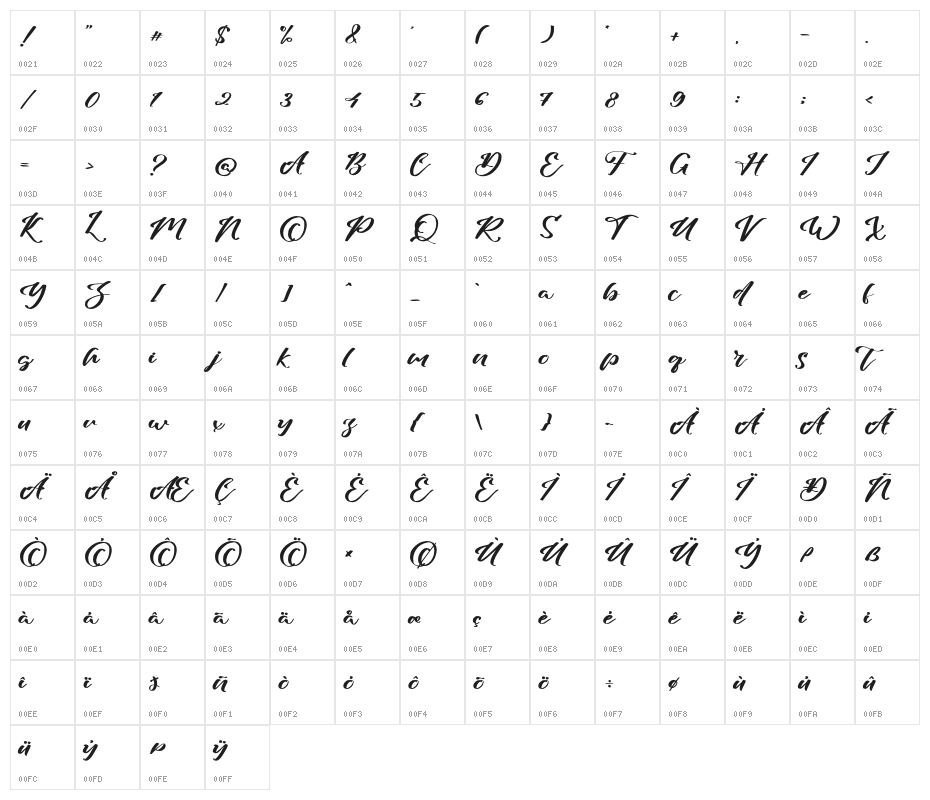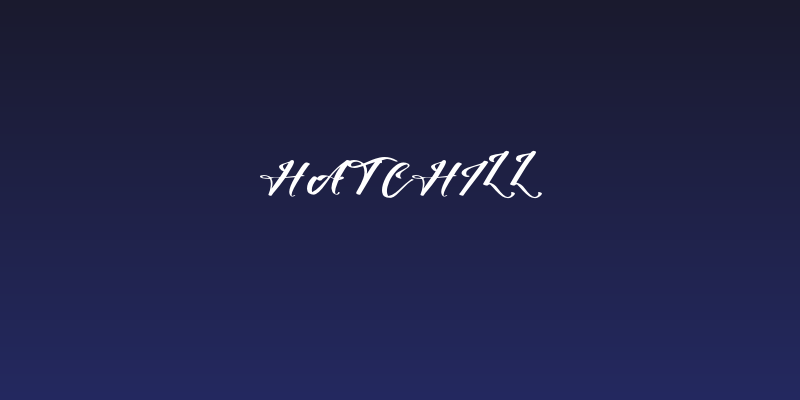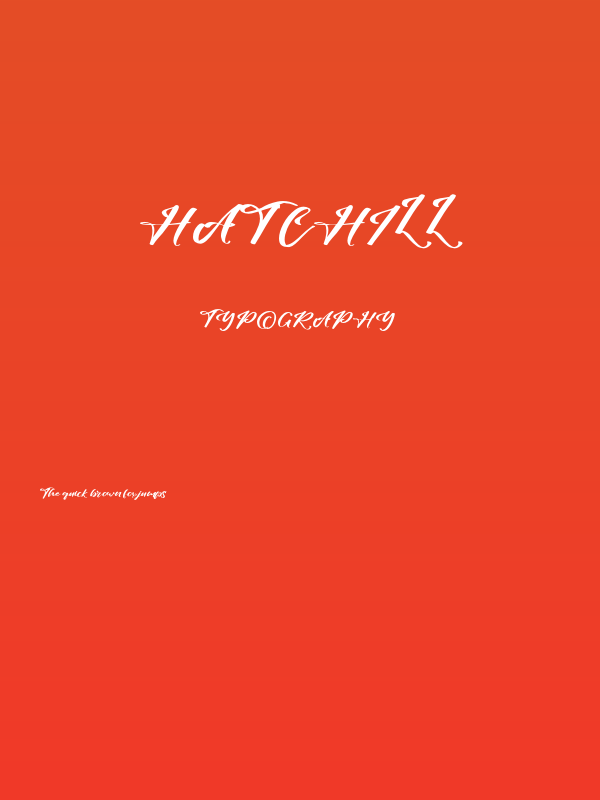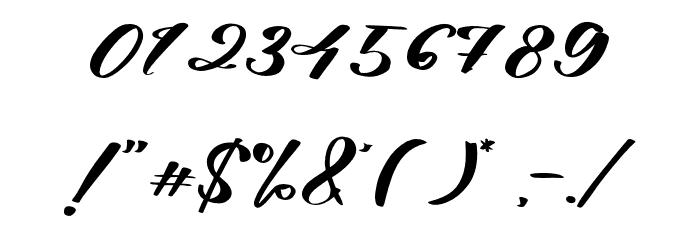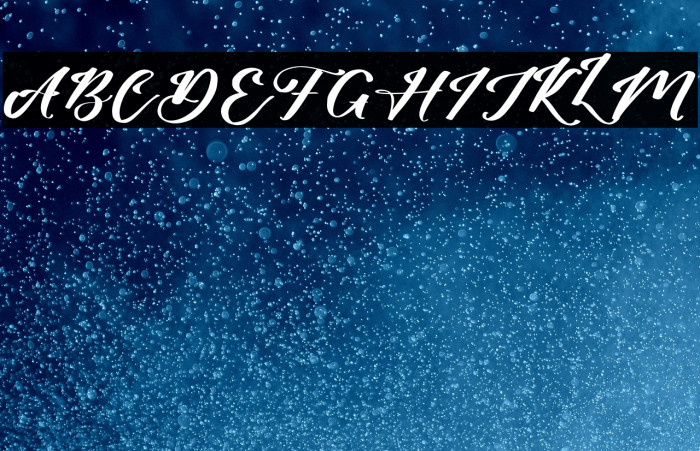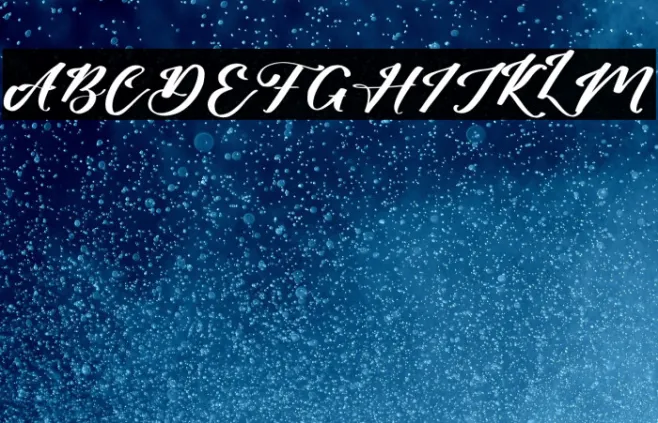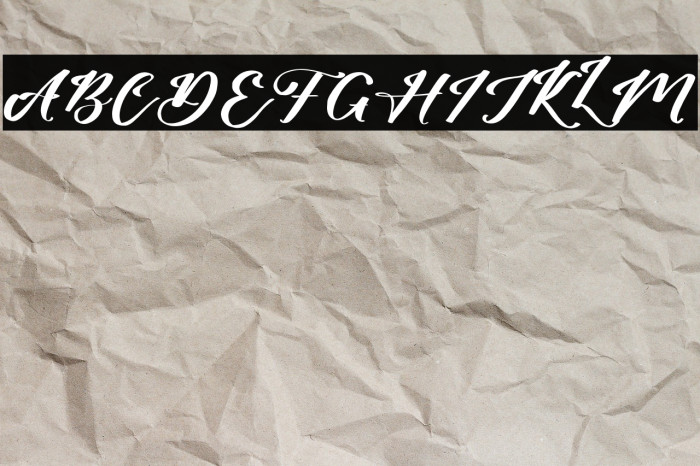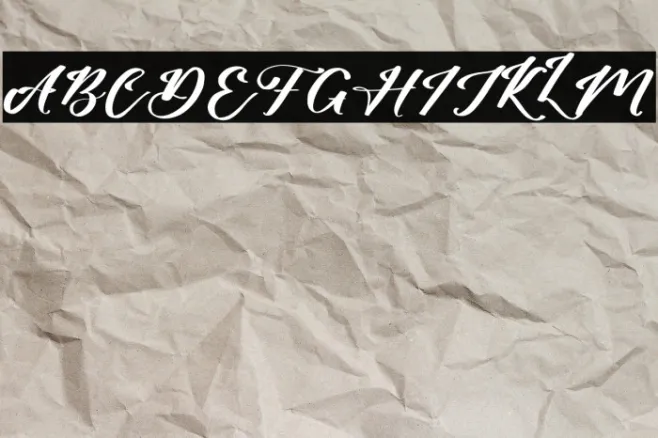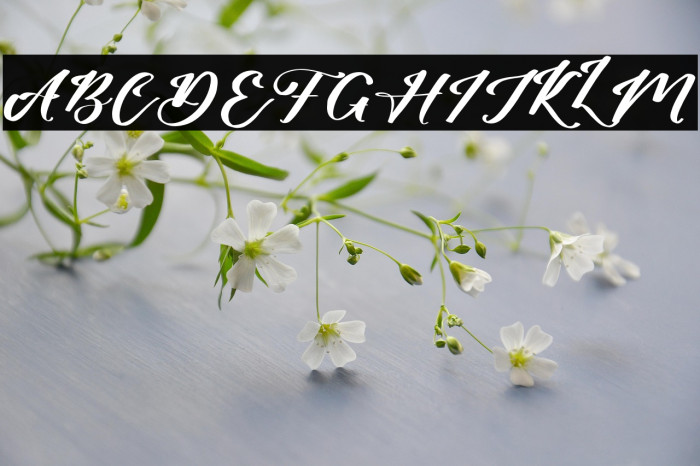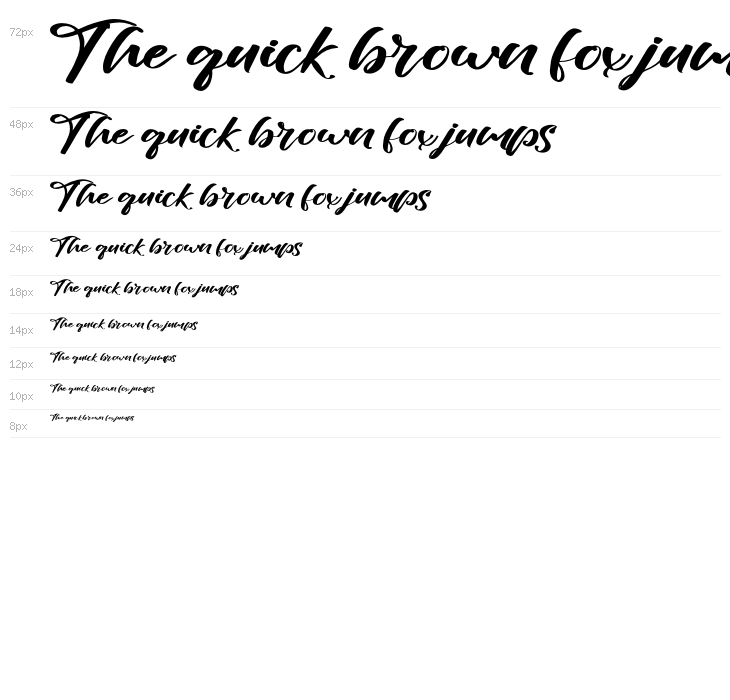
Hatchill Font
Hatchill Description
This font features a dynamic and flowing script style, characterized by its elegant curves and smooth connections between letters. The uppercase letters are bold and expressive, with a slight slant that adds to the overall fluidity. The lowercase letters maintain a consistent style, with some characters featuring distinctive loops and flourishes. The numerals are well-integrated into the script, maintaining the same bold and flowing characteristics. Special characters are designed to complement the overall aesthetic, ensuring a cohesive look across all text elements.
| Proposed Projects | Ideal for wedding invitations, branding, greeting cards, and elegant packaging designs. |